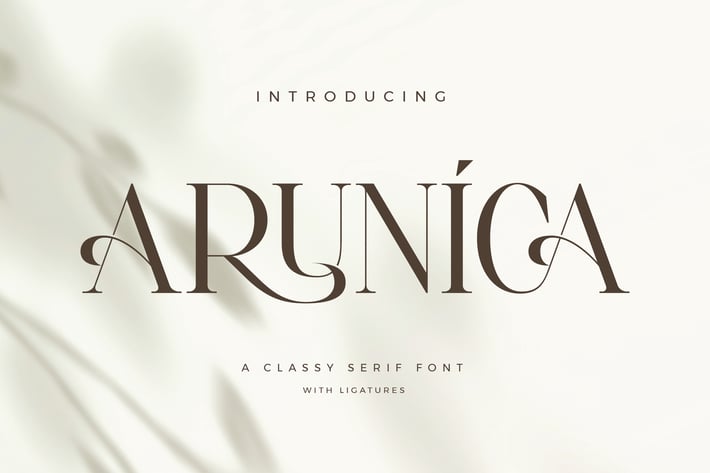
Arunica Classy Serif Font
Arunica Stylish Ligature Typeface, inspired by the famous minimalist logo perfect for the purposes of designing templates, brochures, videos, advertising branding, logos and more.